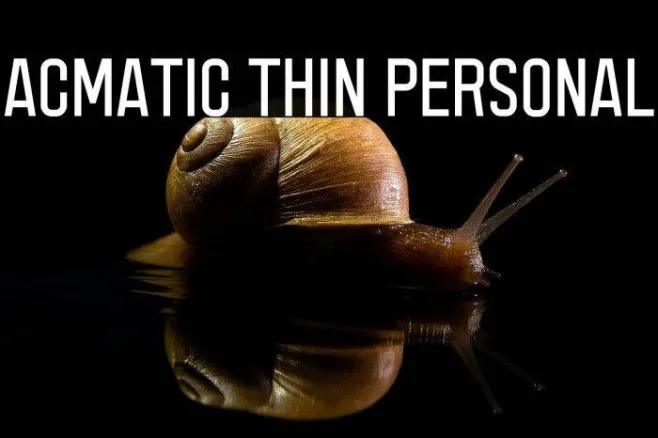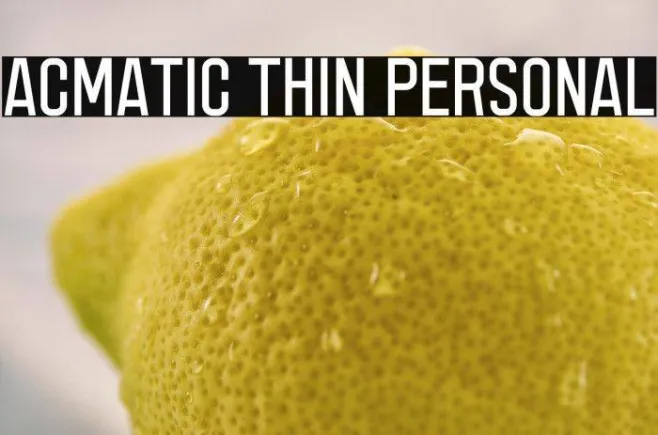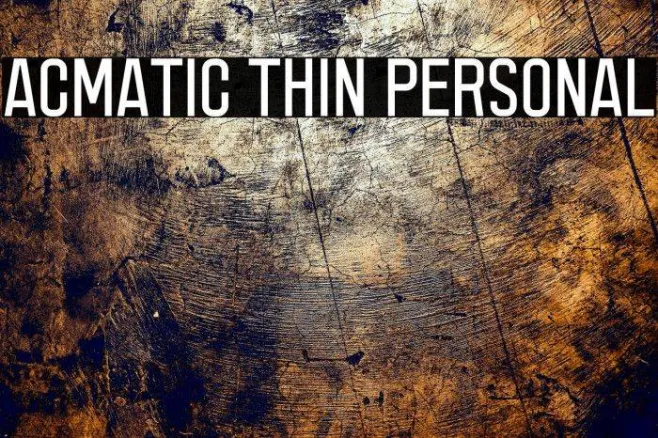
Acmatic Thin Personal Font
Acmatic Thin Personal Description
This font features a modern and sleek design with clean, straight lines and a geometric structure. The uppercase letters are bold and uniform, creating a strong visual impact. The characters are evenly spaced, providing a balanced and organized appearance. The font's thin strokes give it a contemporary feel, making it suitable for various design applications. Its simplicity and clarity ensure readability, while the consistent height of the letters adds to its professional look. This font is ideal for projects that require a modern and minimalist aesthetic.
Use CaseHeadlines, Logos, Branding
Proposed ProjectsIdeal for branding, headlines, posters, and digital media that require a modern and minimalist touch.